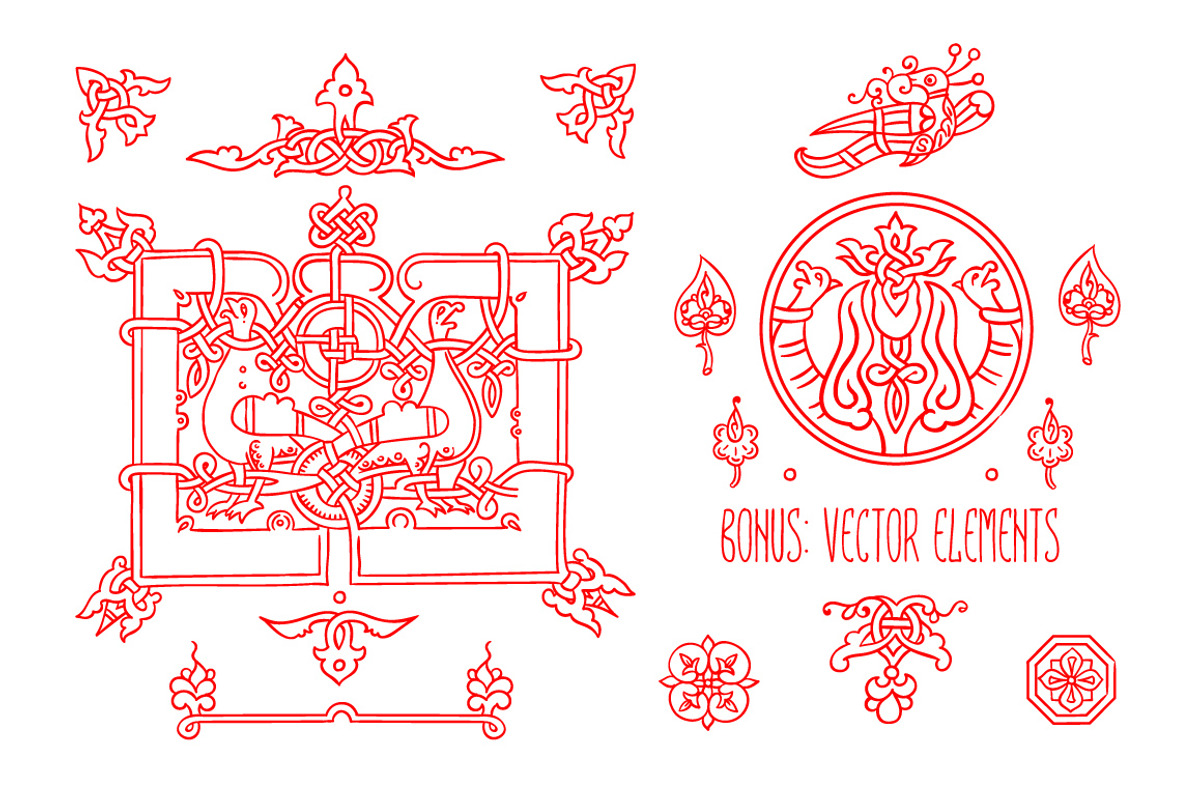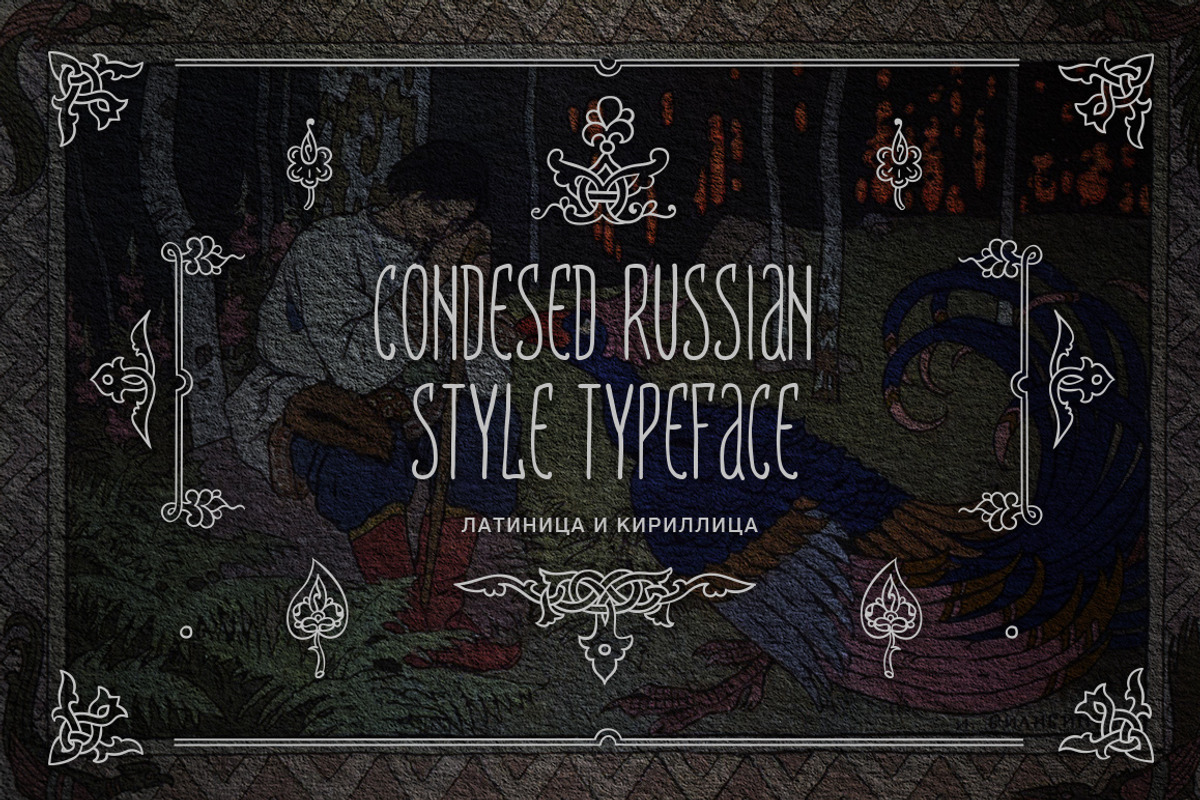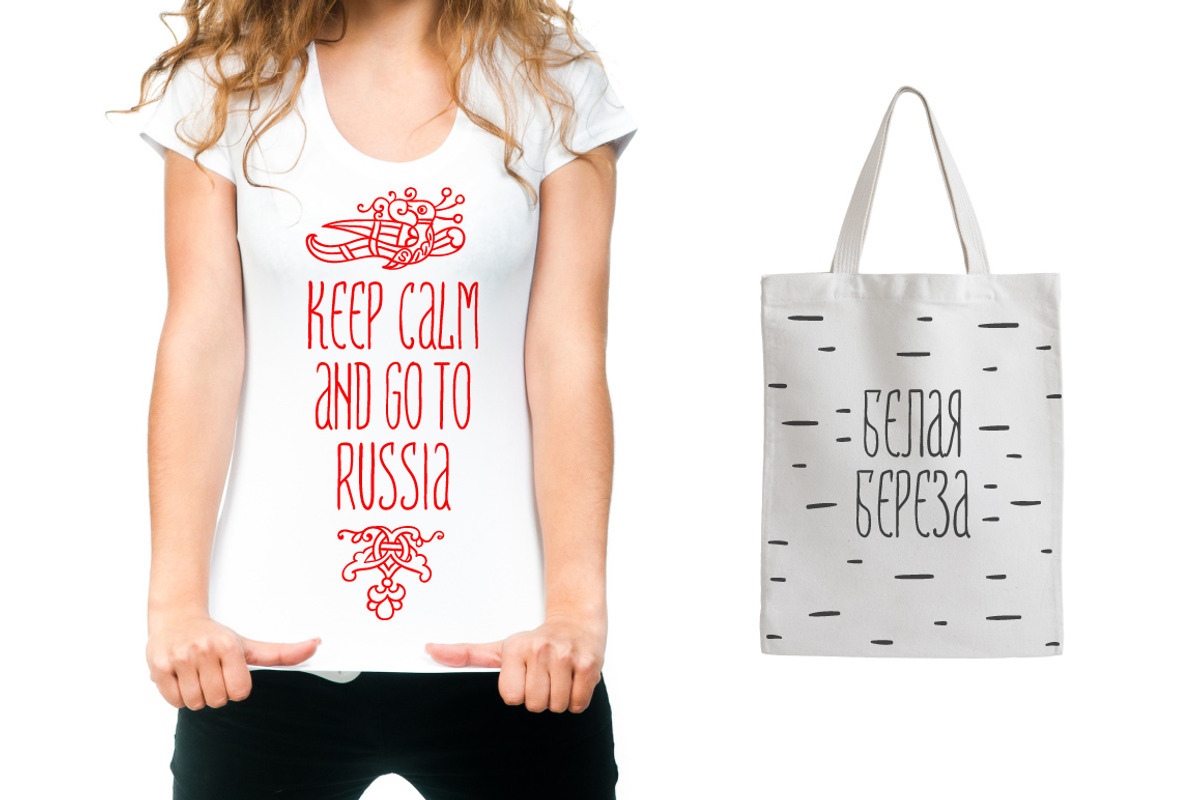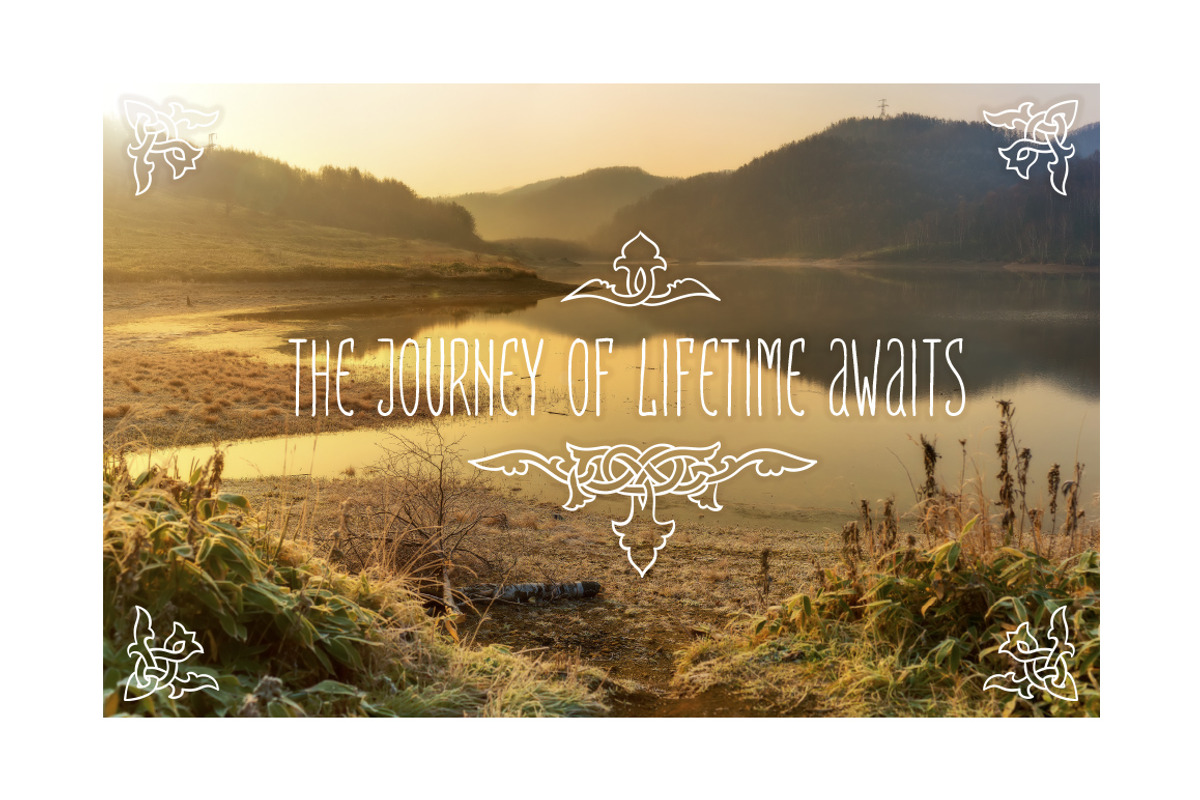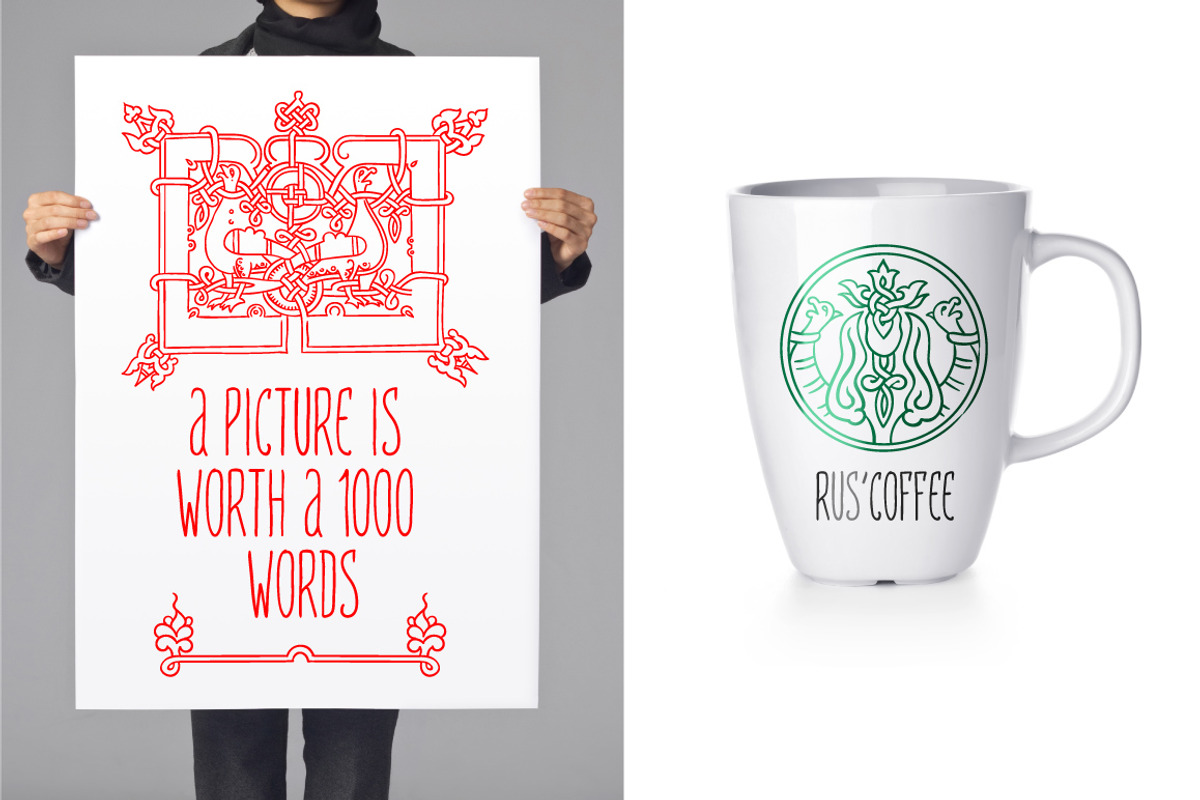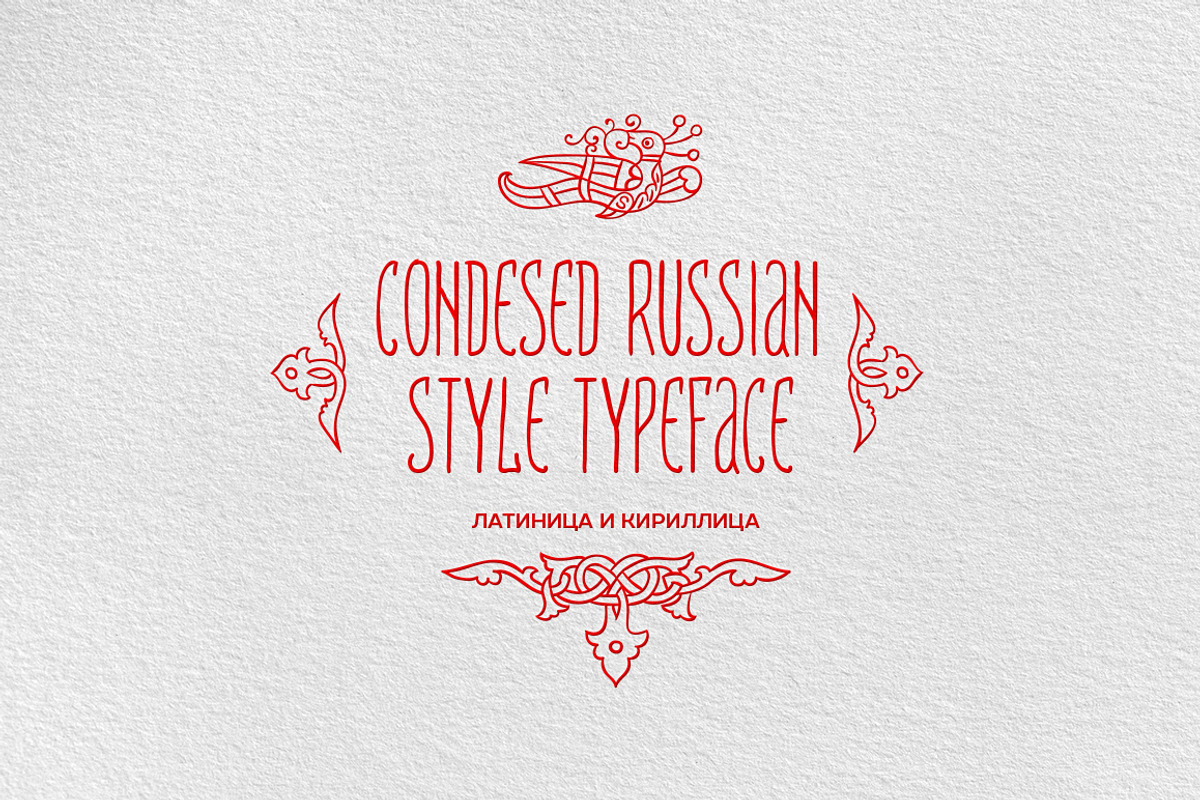
Condensed russian style typeface
Condensed russian style typeface by PREMIUMVECTOR is a font selected for branding, posters, packaging, typography.
Why Condensed russian style typeface is worth a look
Condensed russian style typeface by PREMIUMVECTOR fits naturally into Branding, posters, packaging, typography.